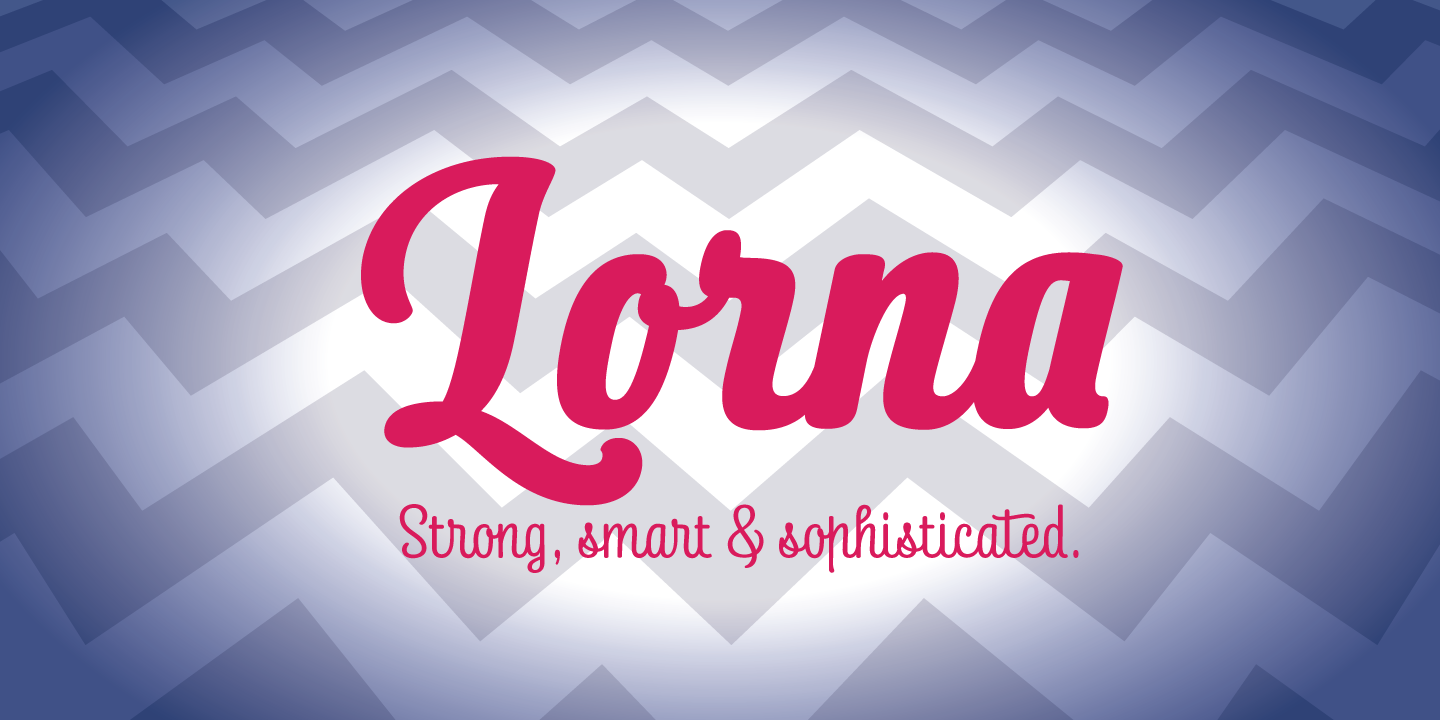
The Lorna Font is typically a charming and contemporary display typeface, often characterized by its unique blend of organic shapes and playful curves, or perhaps a distinct handcrafted feel. Its design frequently balances artistic flair with approachability, making it an excellent choice for projects that aim for a friendly, creative, or personalized aesthetic. Imagine Lorna Font bringing a whimsical touch to children's book titles, adding a unique personality to handmade product labels, or gracing the branding of artisanal bakeries and creative studios. It's incredibly effective for designing cheerful greeting cards, engaging social media graphics, or any content where you want your text to feel warm, inviting, and distinctly individual. If your project seeks to convey charm, creativity, and a touch of uniqueness, the Lorna Font is a delightful selection.
What makes the Lorna Font so exciting? Its appeal lies in its ability to infuse designs with immediate character and a sense of warmth. Unlike more rigid typefaces, Lorna Font often possesses subtle irregularities or distinctive letterforms that give it a memorable and endearing quality. It communicates a feeling of authenticity and creativity, making your designs feel more personal and engaging. This font is perfect for capturing attention in a gentle yet impactful way, ensuring that your message is not only seen but also felt. It's a typeface that brings a smile, adding a touch of approachable artistry to your visual communication.
The Lorna Font family, given its often stylistic nature, might offer variations that enhance its expressive capabilities rather than a vast array of traditional weights. You could typically expect to find styles such as Lorna Regular, which would be the primary distinctive style. Depending on the designer's intent, there might also be a Lorna Bold for added emphasis, or perhaps a Lorna Italic if the design lends itself to slanted forms. Some versions might even include decorative alternates or ligatures to further enhance its unique charm. These focused variations ensure that the Lorna Font maintains its signature appeal while providing enough flexibility for various design contexts. For your projects, remember to utilize the Lorna Font Free Download for preliminary testing, and ensure proper licensing for all commercial uses.